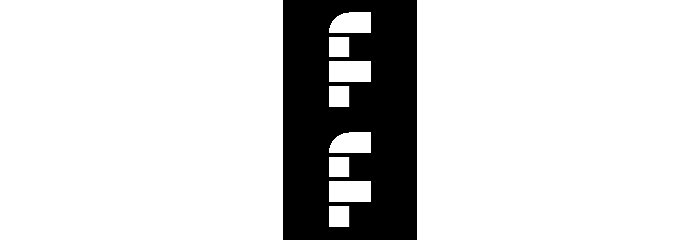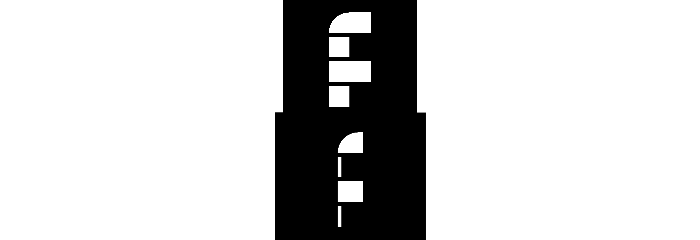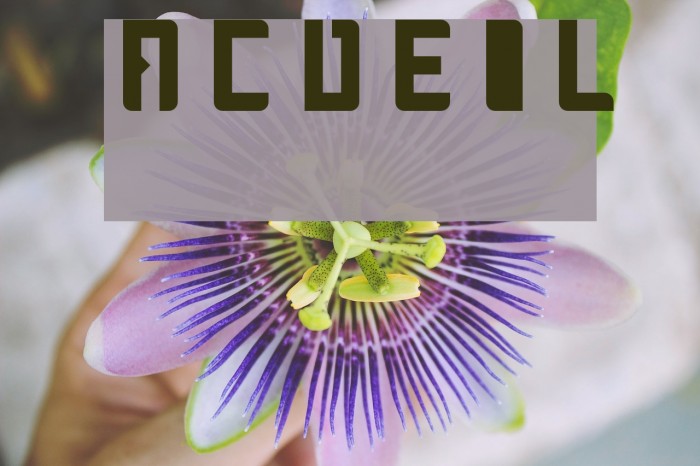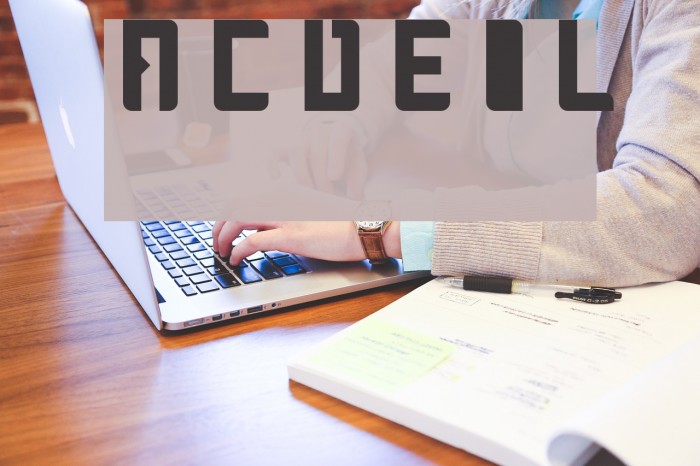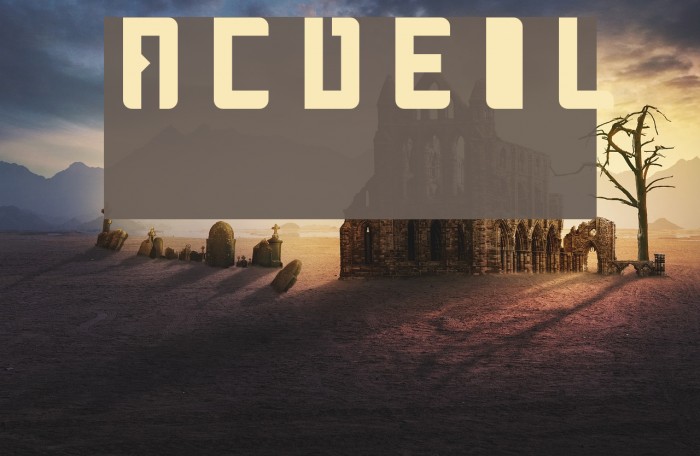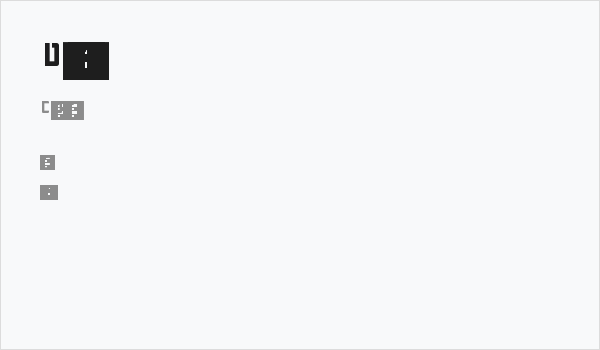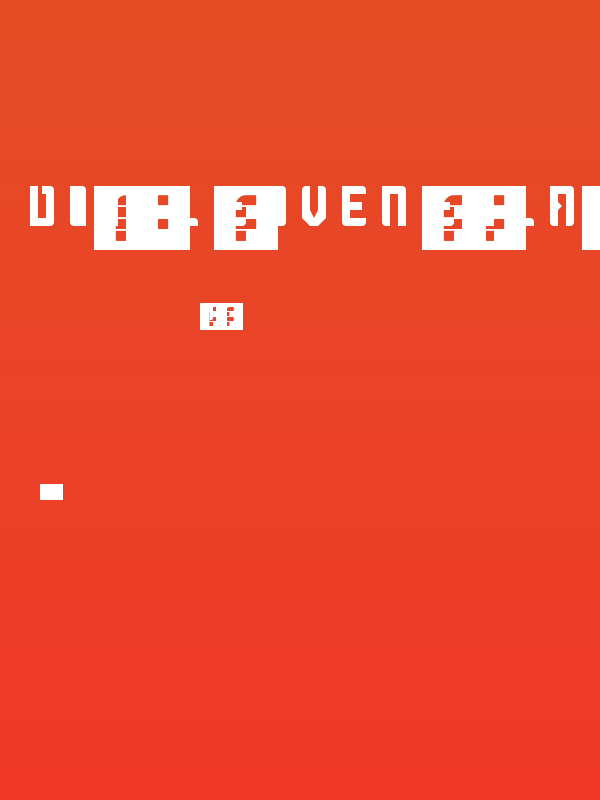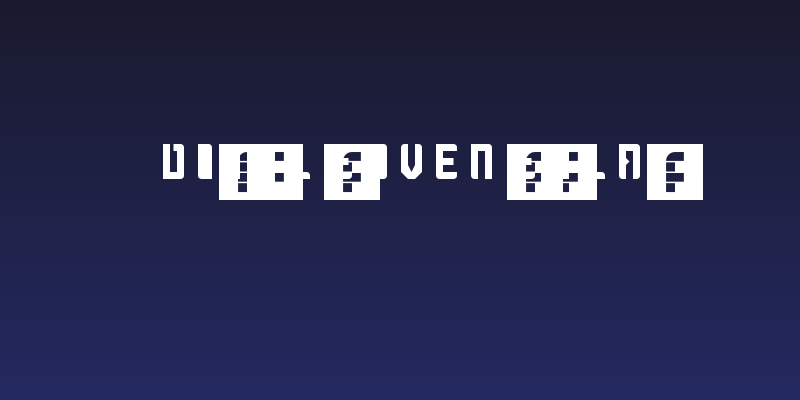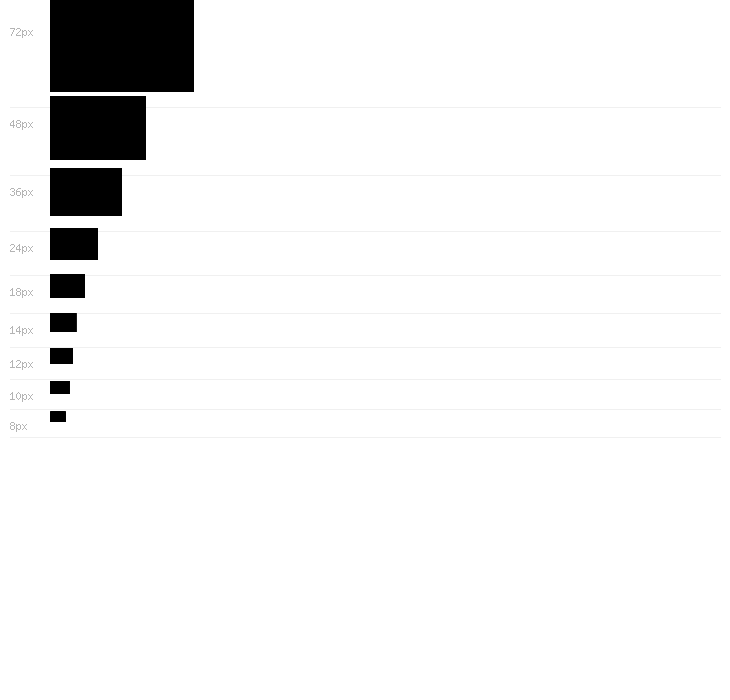
Digital Heaven Regular Font
This font features a futuristic and digital aesthetic, characterized by its geometric and blocky letterforms. The design incorporates a stencil-like appearance with consistent gaps within each character, giving it a unique, tech-inspired look. The uppercase and lowercase letters maintain a uniform style, with sharp angles and straight lines dominating the design. Numbers and special characters follow the same pattern, ensuring a cohesive visual identity across all glyphs. The font's structure is bold and impactful, making it suitable for attention-grabbing headlines and modern design projects.
A futuristic, geometric font with a stencil-like, tech-inspired design.
- Proposed Projects: Ideal for technology branding, sci-fi posters, video game titles, and digital interfaces.